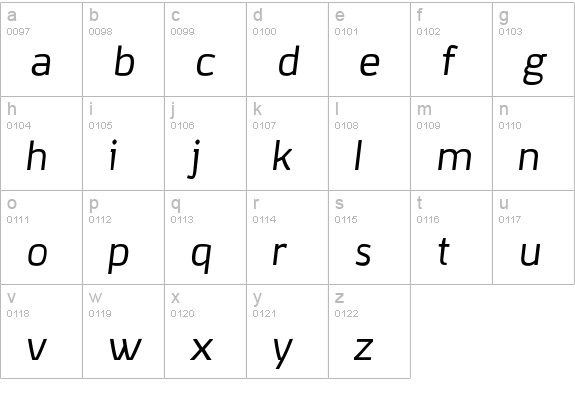
Korpo Sans Italic is a distinctive, italic variant in the Korpo typeface family \xE2\x80\x94 well suited to design and typography projects.
Korpo Sans Italic font is a sleek and modern typeface that exudes sophistication and elegance. Its slanted and italicized design adds a touch of flair to any project, making it perfect for use in branding, editorial design, and more. The graceful curves and clean lines of Korpo Sans Italic font create a sense of movement and fluidity, drawing the eye and capturing attention. The best part about Korpo Sans Italic font is that it is available for free download at FontsMarket.com. This means that you can easily access this stunning typeface without any cost, making it a valuable addition to your font collection. Whether you're a designer looking to elevate your work or a business owner seeking a stylish font for your branding, Korpo Sans Italic font is the perfect choice. Download it today and see the difference it can make in your projects!